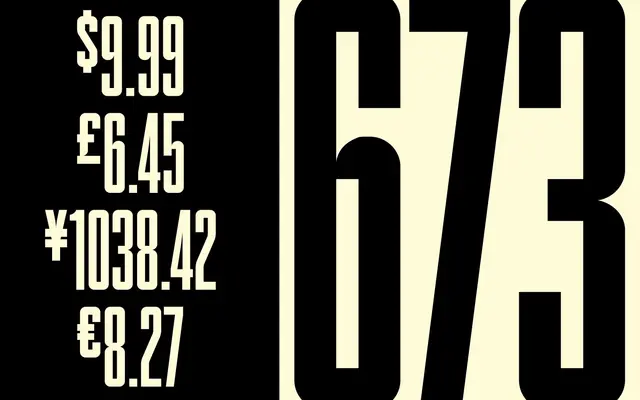
A compressed display typeface by Matt Willey, built for forceful news headlines and posters with uniform cap-height characters and no ascenders or descenders.
Designed by Matt Willey, former art director at the New York Times and Pentagram partner, NSW 01 uses thick strokes and a compressed form to deliver assertive impact at display sizes. All characters sit at the same height with no ascenders or descenders, creating a dense, unbroken line particularly suited to news and poster work. Version 2.0 was released in late 2020 as part of the BuyFontsSaveLives initiative, with proceeds going to Cancer Research UK and Macmillan Cancer Support.
A compressed all-caps display typeface with uniform cap-height characters and no ascenders or descenders, designed for maximum impact at headline sizes.